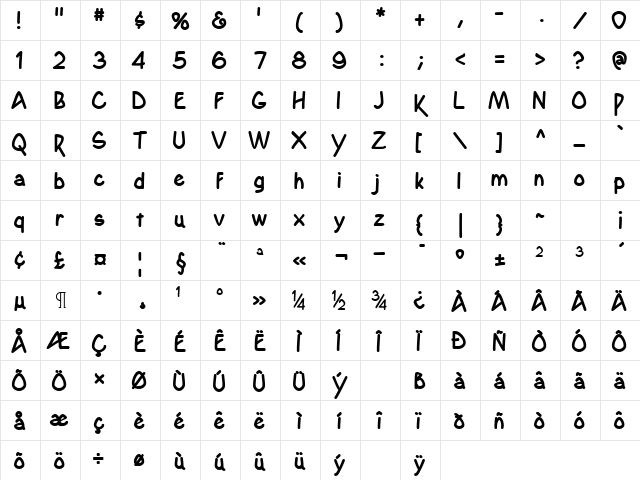
Complete Yahosch Bold glyph index. Displaying only characters natively supported by Yahosch Bold font.
Yahosch is a composed and adaptable typeface that performs quietly and consistently across a wide range of design contexts. Its bold stroke weight gives it real presence on the page.